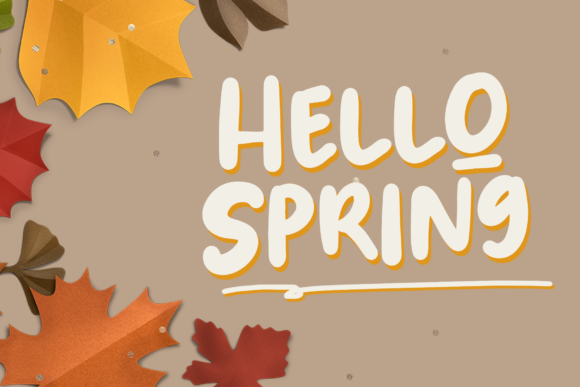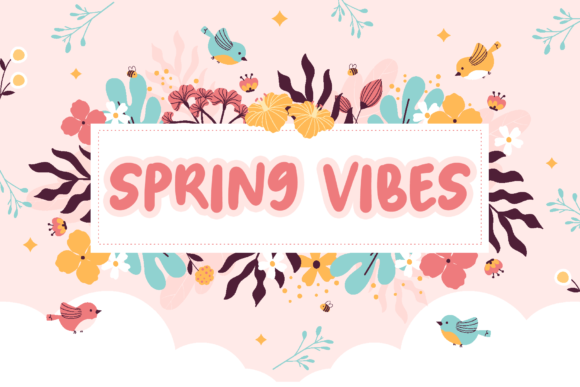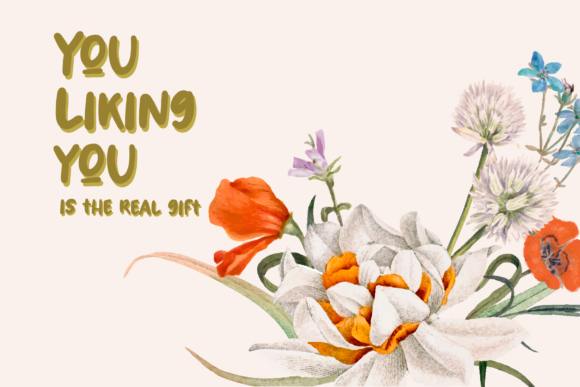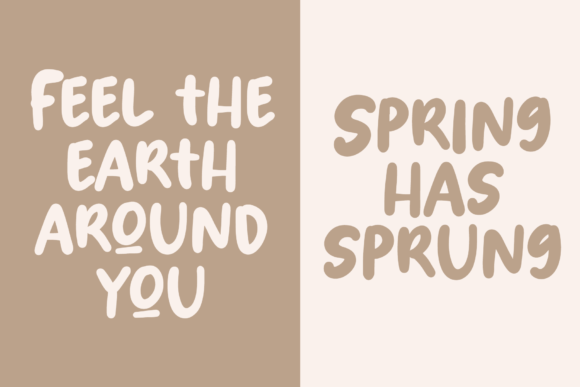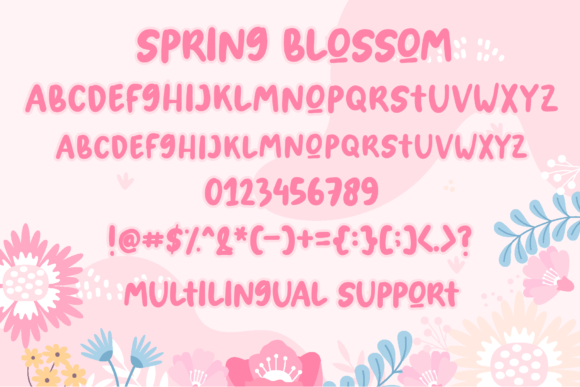
Spring Blossom Font
About Spring Blossom Font
“Spring Blossom” is a playful and seasonal handwritten font designed to bring a lively and vibrant touch to your creative projects. Tailored for use in promotional designs, stationery, quotes displays, greeting cards, and more, this font is crafted to infuse a sense of freshness and joy into your designs. Give it a try, and let it showcase how your projects will shine brighter than ever.
The playful nature of “Spring Blossom” adds a whimsical and cheerful vibe to your text, making it perfect for promotional materials and designs that aim to convey a sense of positivity and energy. Its handwritten style brings an authentic and personal touch, enhancing the overall appeal of your projects.
Whether you’re creating stationary, displaying quotes, or designing greeting cards, “Spring Blossom” is versatile enough to adapt to various contexts. Its seasonal charm makes it particularly fitting for projects that celebrate the spirit of spring, adding a touch of nature and blooming beauty to your designs.
The font’s readability and playful lines ensure that your message is conveyed with a sense of fun and creativity. “Spring Blossom” can contribute to a delightful and expressive atmosphere in your designs, making them stand out with a bright and cheerful aesthetic.
In summary, “Spring Blossom” is more than just a font; it’s a playful and seasonal handwritten typeface that can elevate the vibrancy of your designs. Whether you’re working on promotional materials, stationary, quotes displays, or greeting cards, let “Spring Blossom” bring a touch of freshness and joy to your projects, making them shine brighter and stand out with a delightful charm.